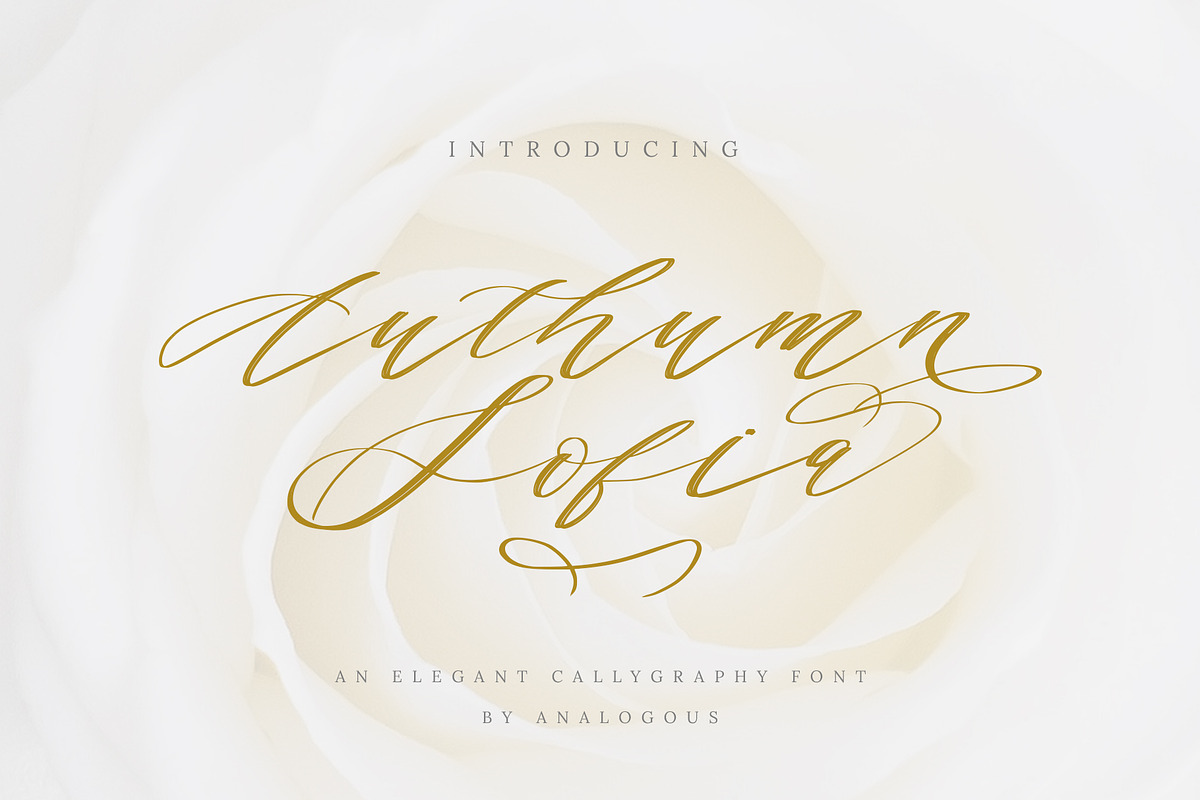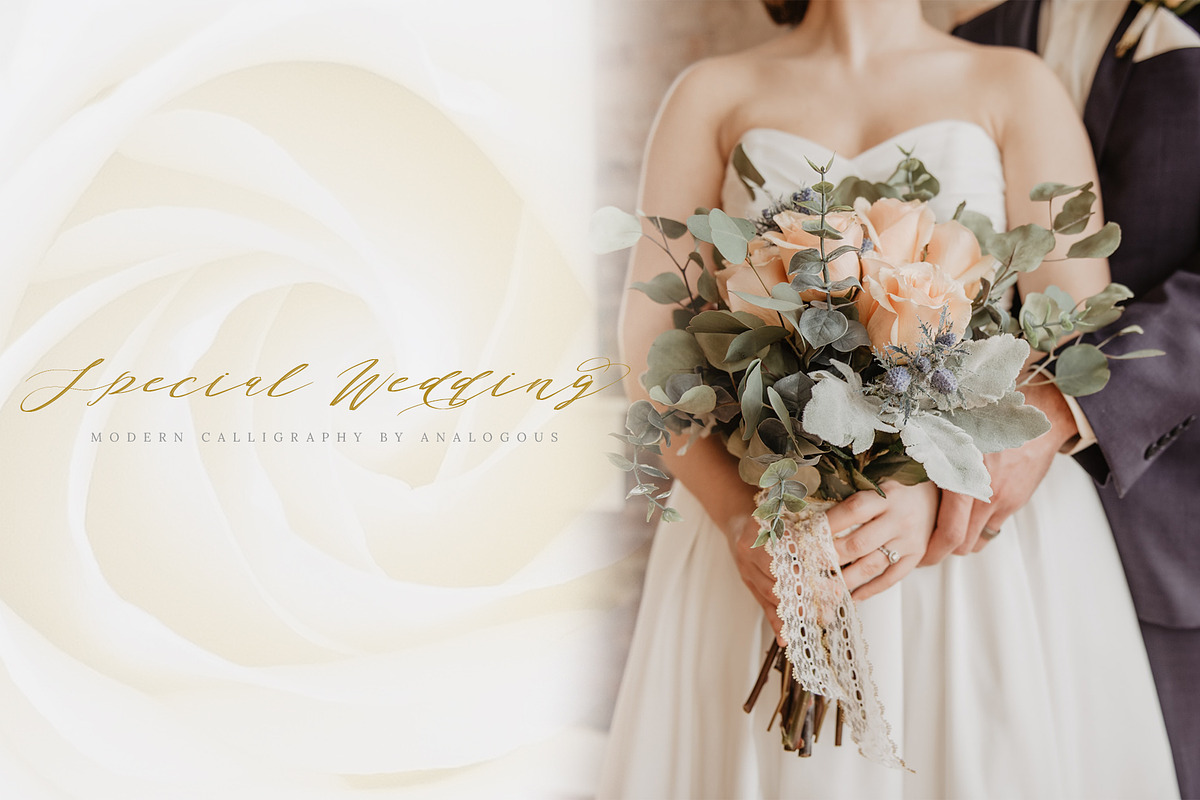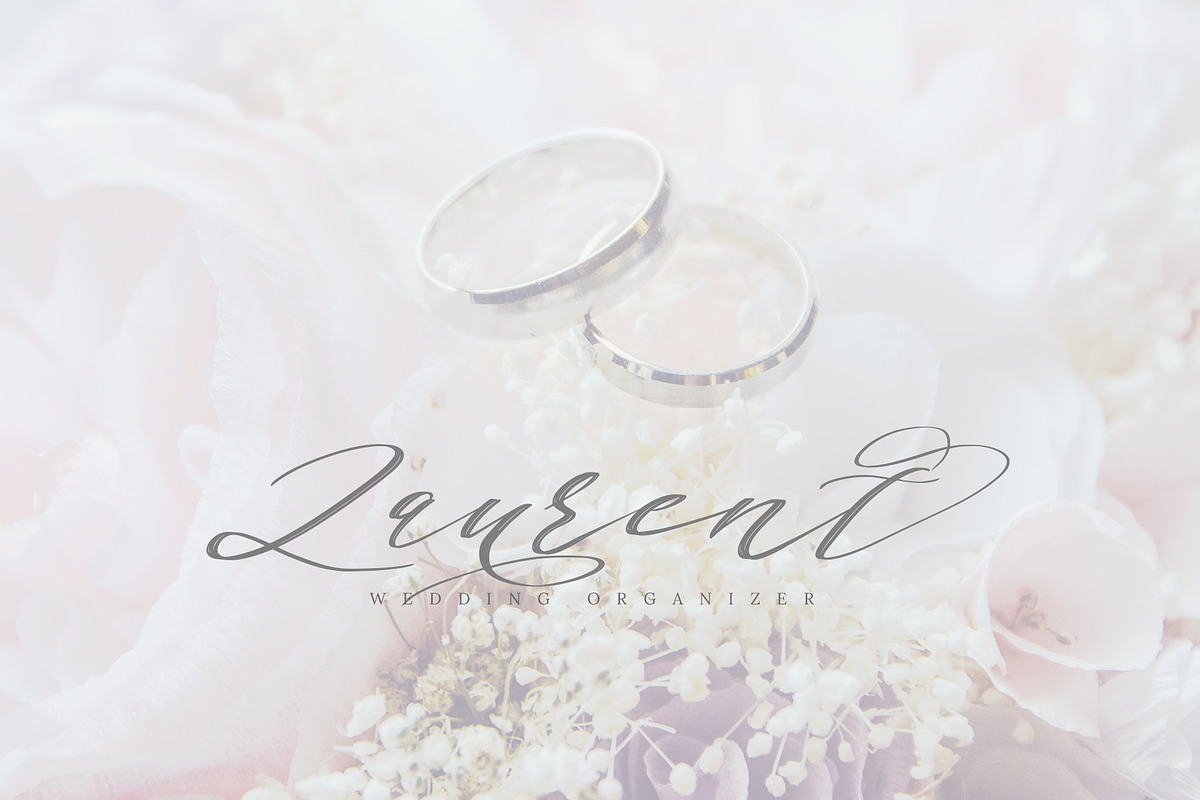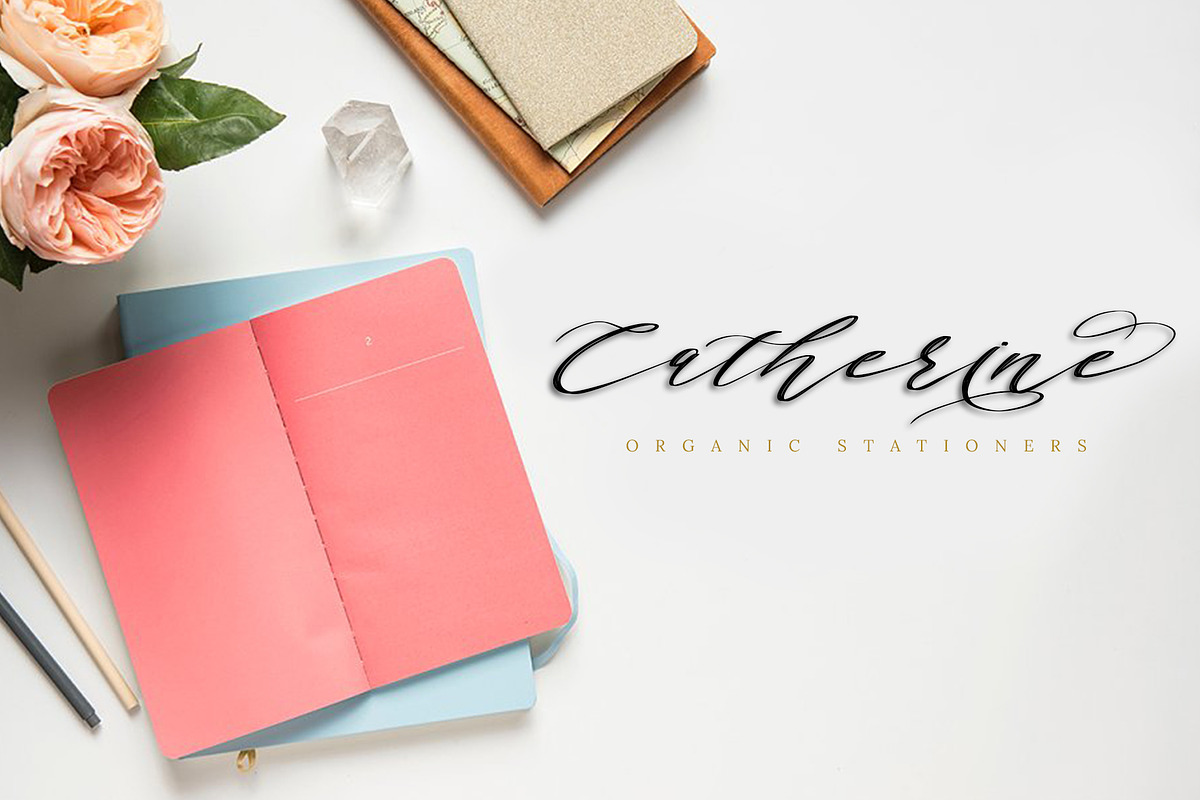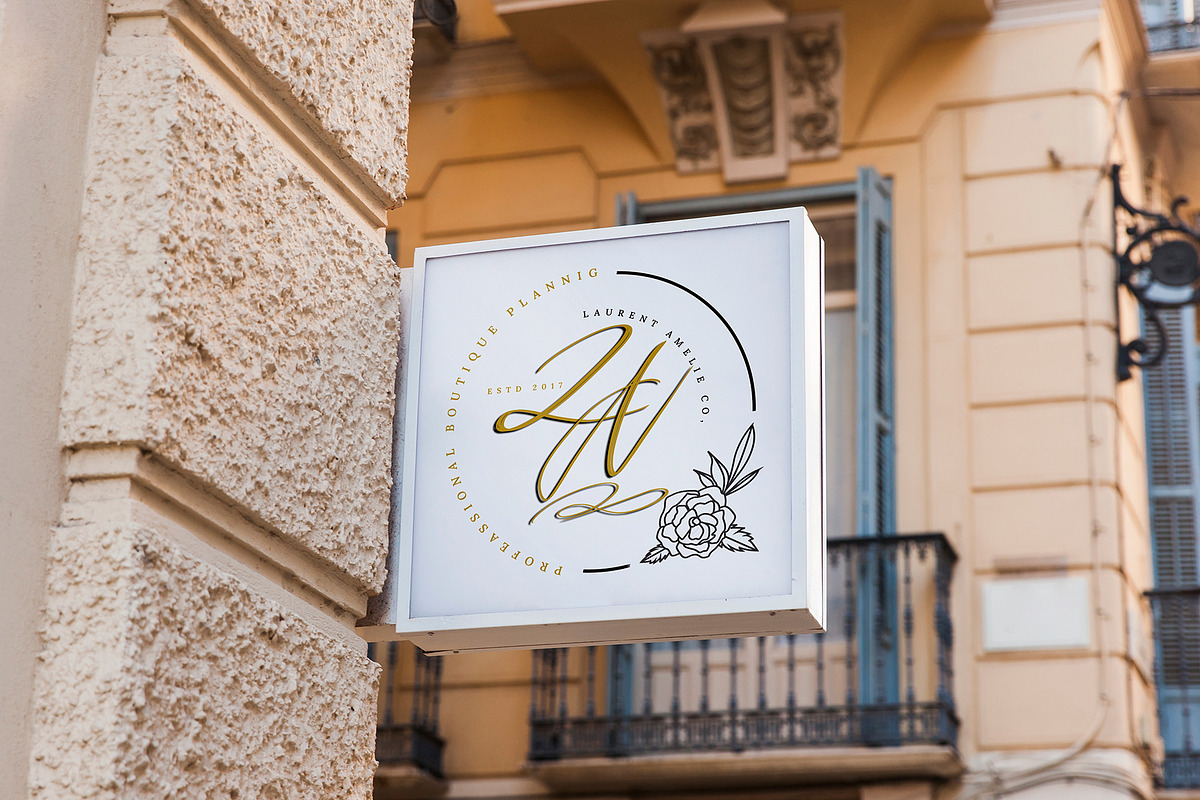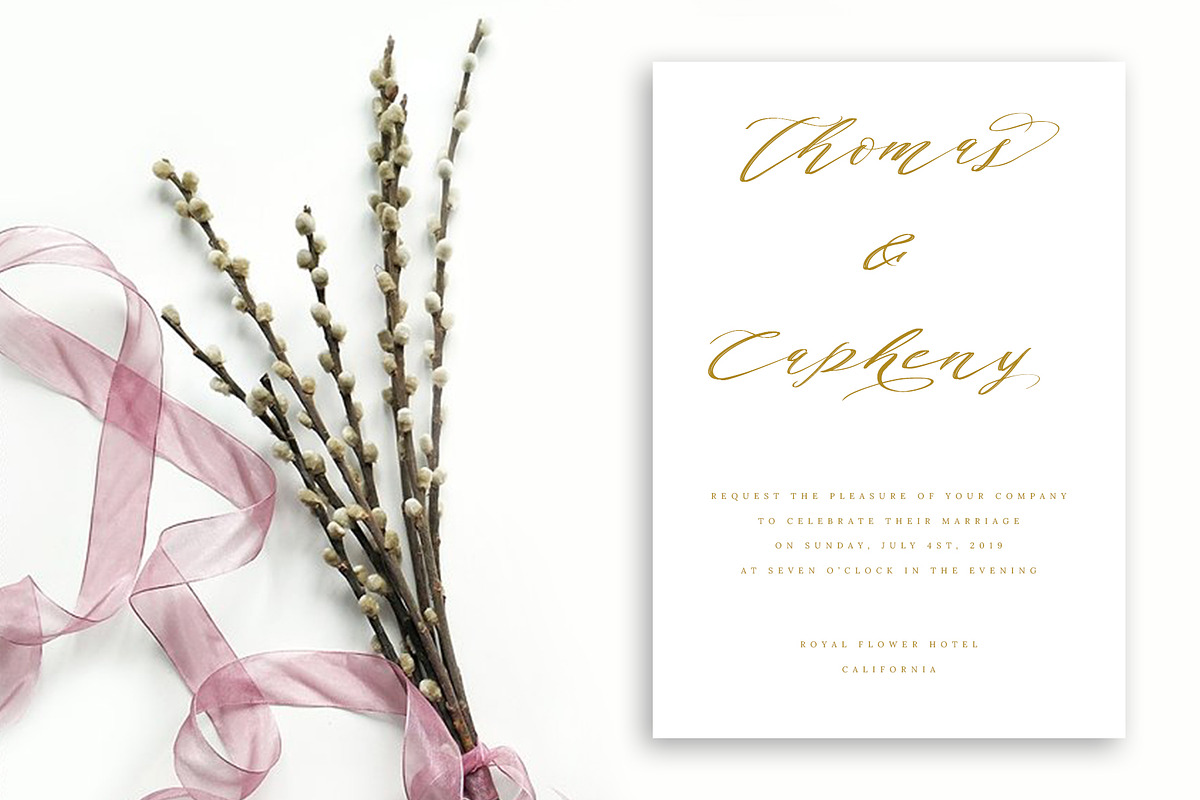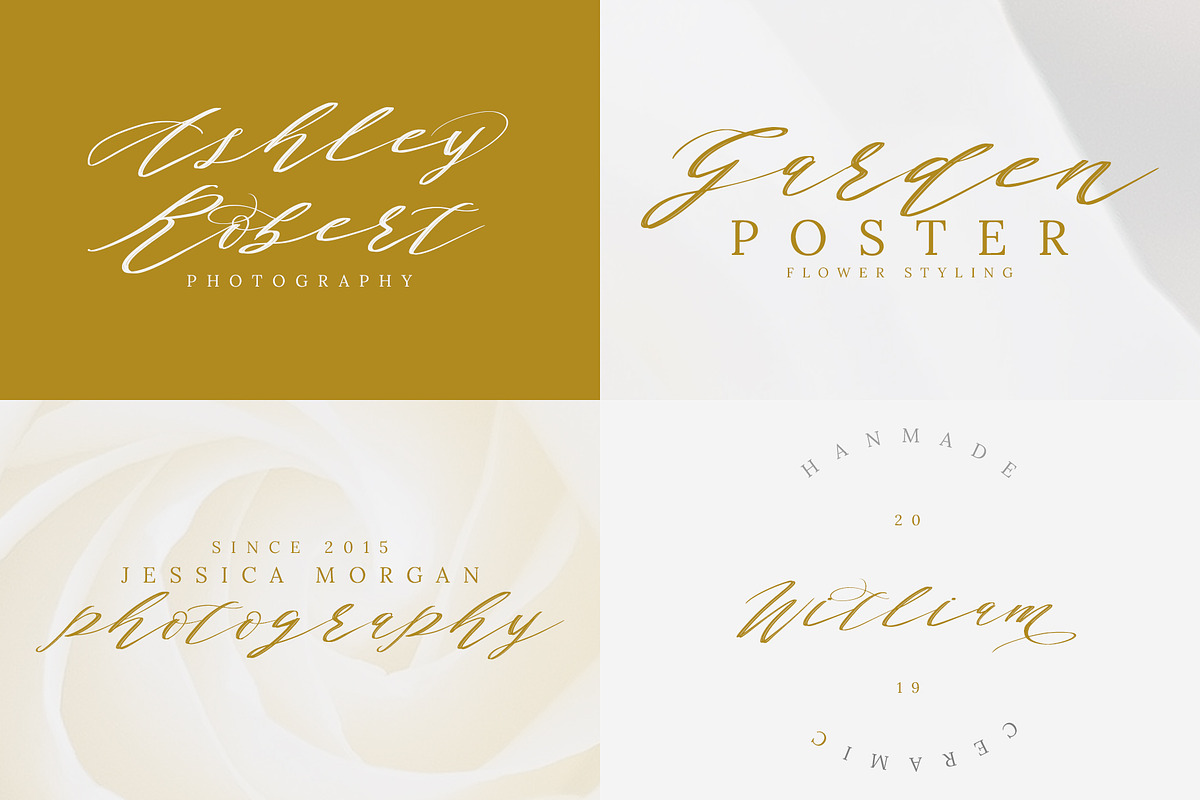
Authumn Sofia | Calligraphy Font
Authumn Sofia, an elegant calligraphy font, full-featured script font with tons of alternate characters and OpenType features. Hand-lettered with a heavy right slant. Specific OpenType features include contextual alternates, stylistic alternates, initial and final forms, multiple alternate glyphs for many letters (accessed through the glyphs panel), multilingual support (including multiple currency symbols), ligatures, standard numbers, and six ampersand styles.
Carefully designed to work together in harmony that makes it very suitable for wedding media, book covers, greeting cards, logos, branding, business cards and certificates, even for any design work that requires a classic, formal or luxurious.